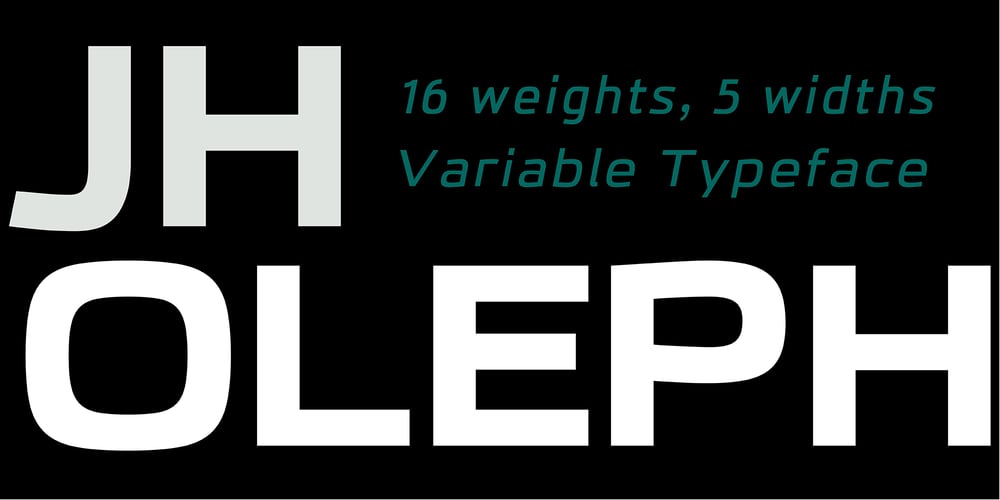
JH Oleph var Font Family was designed by Joe Hatem and published by JH Fonts. JH Oleph var contains 2 styles and family package options. JH Oleph is a modern neo sans humanist Typeface. It includes eight weights and five widths, total of forty weights and another forty italics.JH Oleph may be used as screen display and text type.